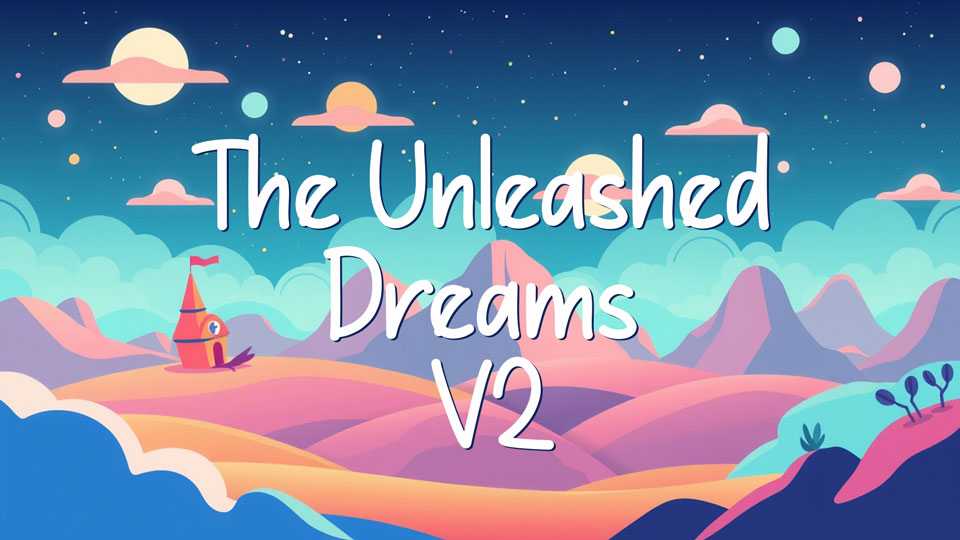
The Unleashed Dreams V2 Font › Fontesk
Download The Unleashed Dreams V2 font, a handcrafted script typeface infused with warmth, whimsy, and expressive charm, designed to mimic the rhythm and imperfections of natural handwriting.